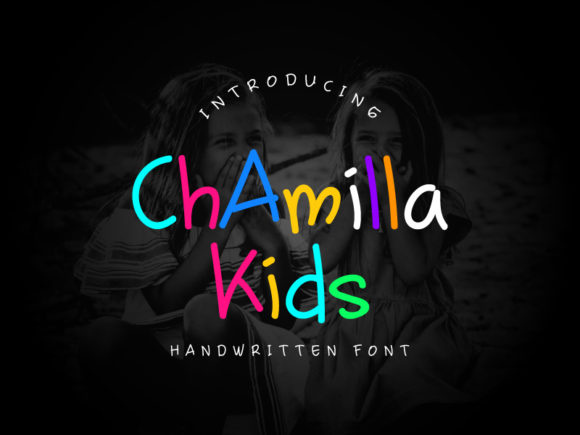
Chamilla Kids Font
Chamilla Kids Font is perfect for children's educational materials, playful toy packaging, fun nursery signage, delightful daycare branding, cheerful birthday invitations, whimsical children's book covers, joyful playground displays, colorful learning apps, imaginative craft projects, and enchanting family entertainment venues.
Chamilla Kids Font creates excitement because it embodies the pure joy and boundless imagination of childhood with its playful letterforms and child-inspired character design. The font's bouncy curves and magical aesthetic instantly convey wonder and happiness, making any brand appear friendly and authentically child-centered. Its carefully crafted whimsical details and enchanting character create an immediate sense of childhood magic that captivates audiences seeking joyful experiences, imaginative products, and brands that celebrate the beautiful innocence and creative spirit of children's worlds.
The Chamilla Kids Font family includes multiple weights and styles: Regular, Bold, Light, Medium, Italic, Condensed, Extended, Playful, Magical, and Wonder versions. Each variant maintains the font's signature childlike character while offering different levels of playfulness and whimsical styling suitable for various children-focused and family entertainment applications.
This delightful typeface brings the authentic spirit of childhood imagination into contemporary family design with remarkable charm and magical appeal. Chamilla Kids Font Free Download provides children's brands and family entertainment companies with access to premium child-inspired typography that embodies the essence of childhood wonder and playful creativity. The font's magical design and childlike authenticity make it ideal for businesses seeking to create memorable experiences that spark imagination and bring joy to children and families who appreciate genuine fun and creative play. Whether you're developing branding for children's entertainment companies, creating educational materials for young learners, designing packaging for toys and games, or producing content for family-friendly venues, this font delivers the enchanting atmosphere that resonates with children seeking magical experiences, creative play, and the wonderful adventures that make childhood so special. Its versatile design ensures outstanding performance across both colorful printed materials and interactive digital children's platforms while maintaining the spontaneous energy of authentic childhood creativity. The font excels in applications requiring immediate emotional connection with children and educational value. Children's industry professionals appreciate its ability to convey pure childhood joy while remaining highly readable for various educational materials and family-friendly communications. The comprehensive character set includes playful symbols and extensive international language support, making it perfect for global children's brands and international family entertainment companies seeking to communicate authentic childhood magic, creative imagination, and joyful wonder to diverse worldwide families who cherish childhood innocence, celebrate creative play, and embrace the beautiful magic that makes every day an adventure filled with laughter, discovery, and endless possibilities for imagination and joy.